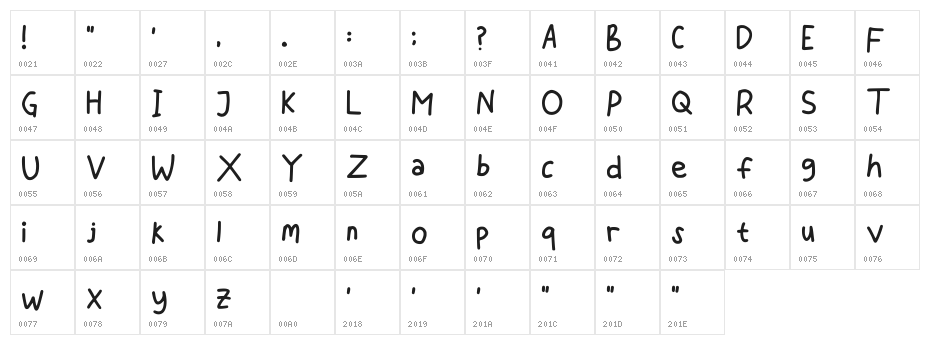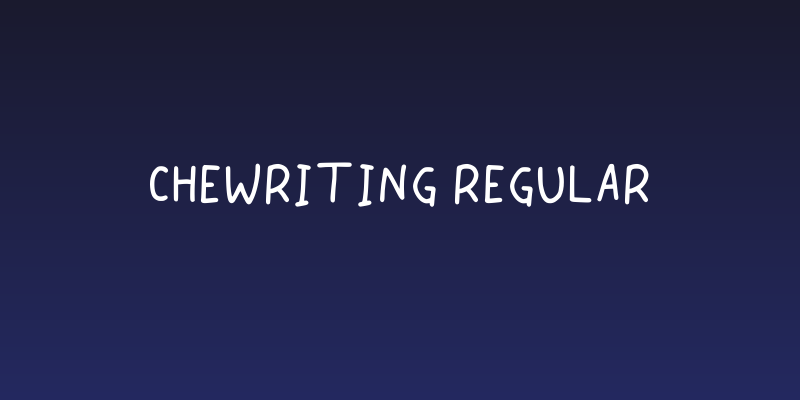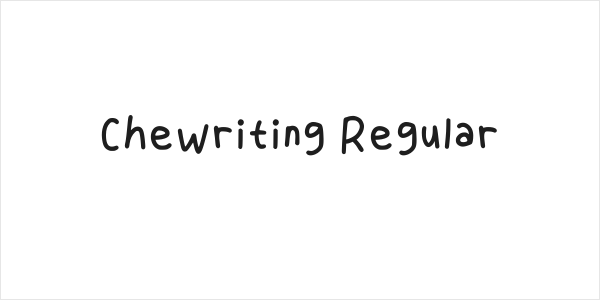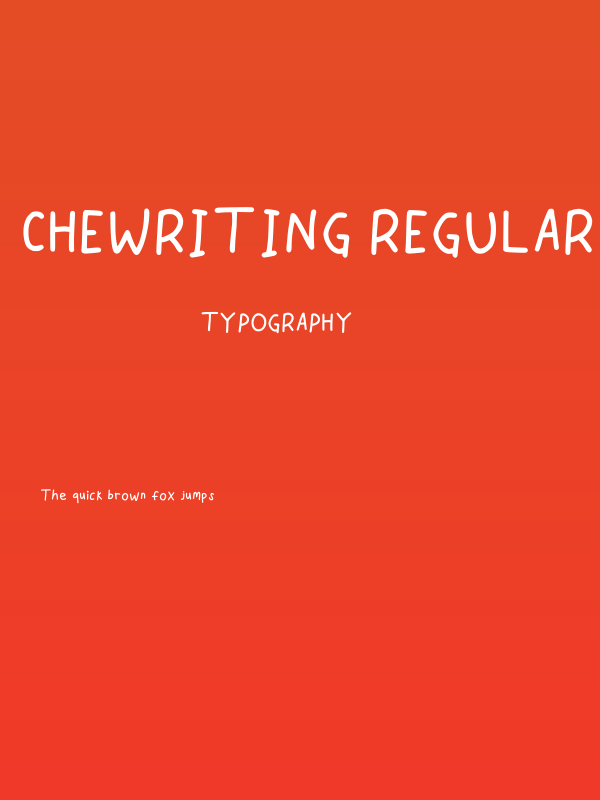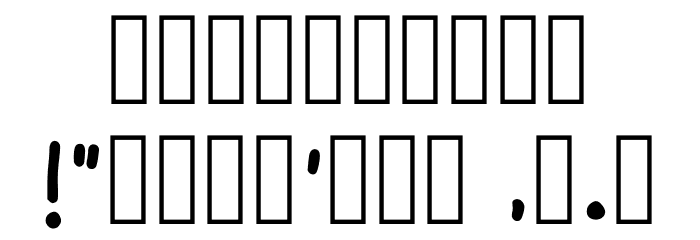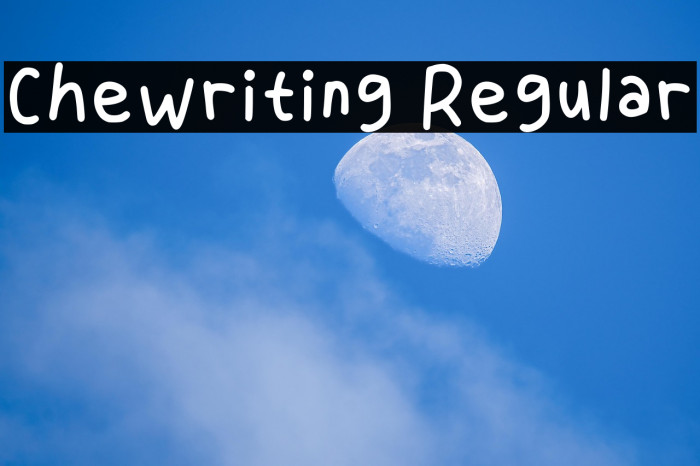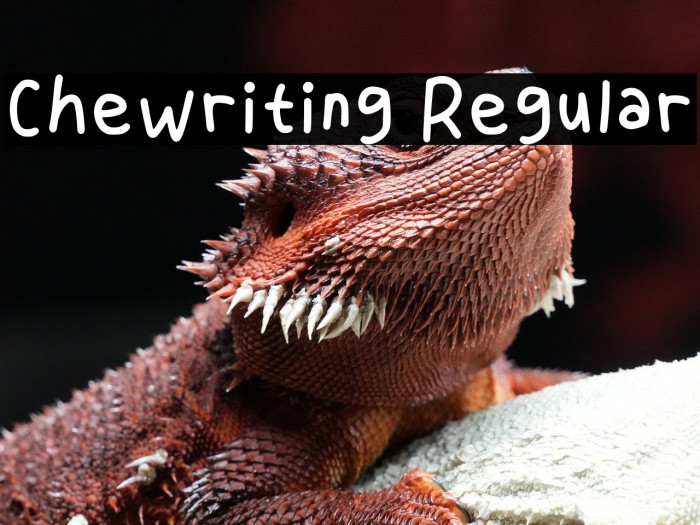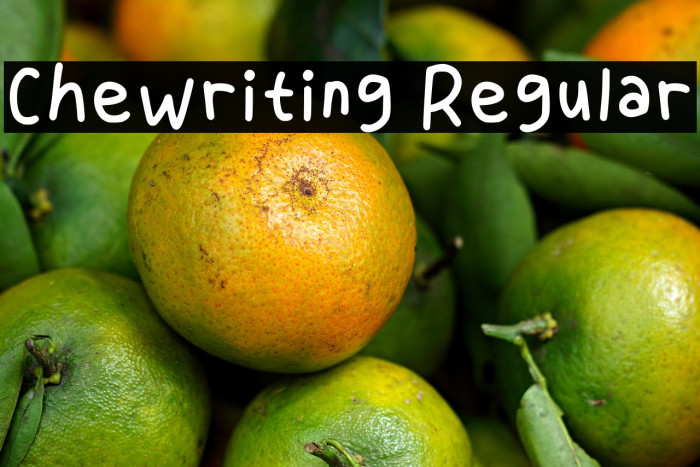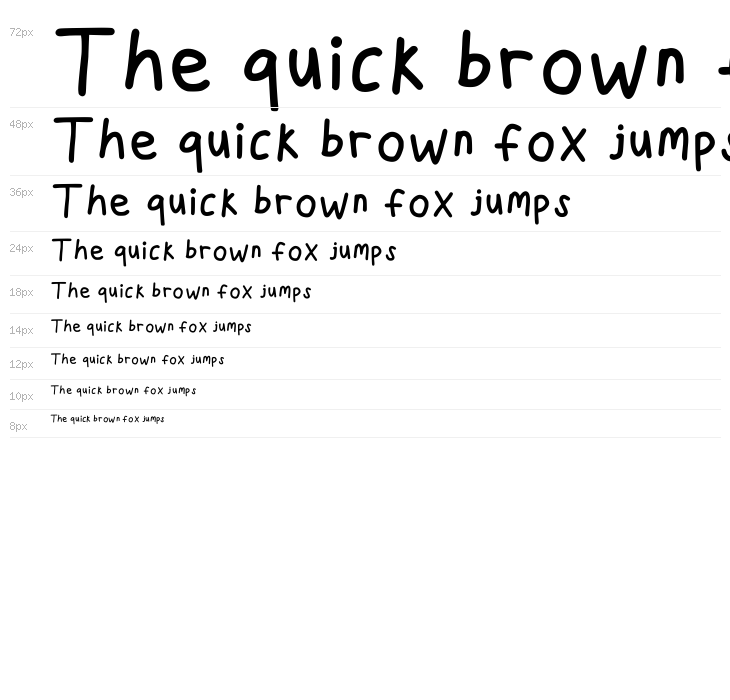
Chewriting Regular Font
Chewriting Regular Description
This font features a playful and casual handwritten style, characterized by its rounded and slightly irregular letterforms. The strokes are consistent in width, giving it a uniform appearance while maintaining a friendly and approachable feel. The uppercase letters are bold and prominent, while the lowercase letters are more relaxed and flowing. The numbers and special characters follow the same informal style, making it suitable for projects that require a personal touch. The overall design is simple yet effective, perfect for conveying a sense of warmth and creativity.
| Proposed Projects | Ideal for greeting cards, children's books, personal blogs, and creative branding projects. |